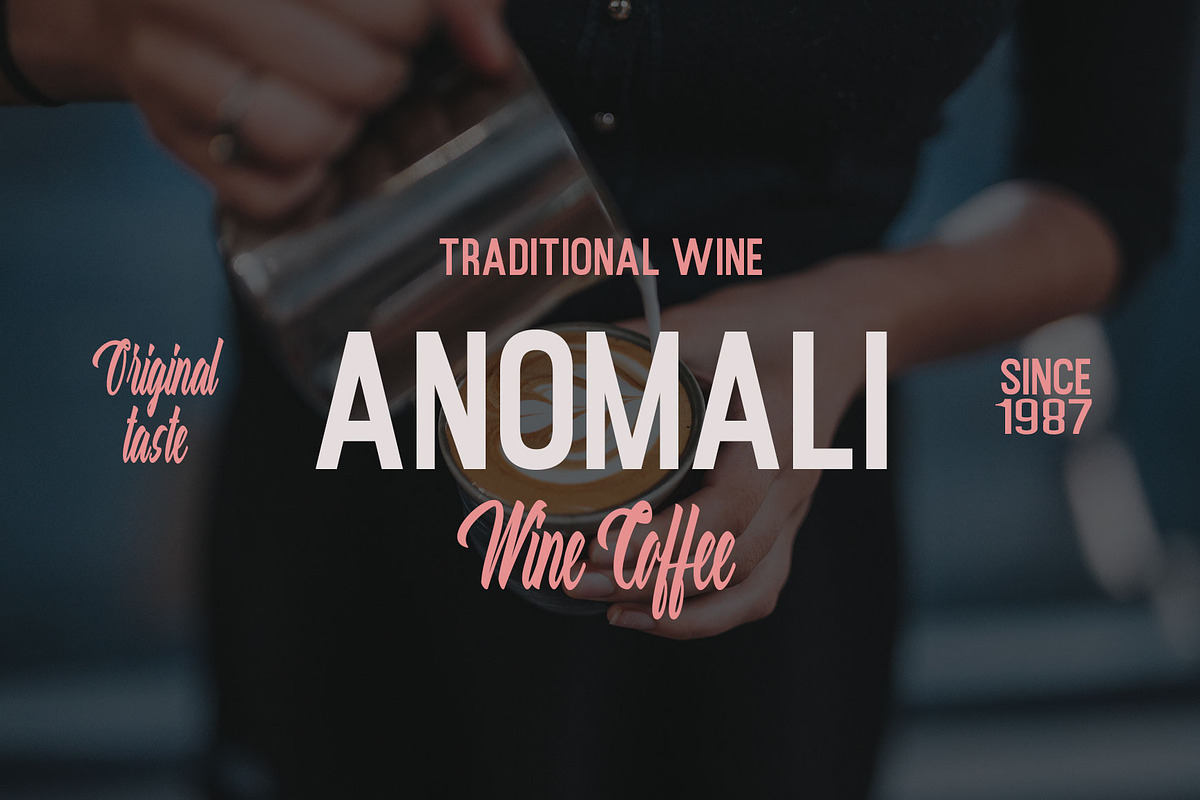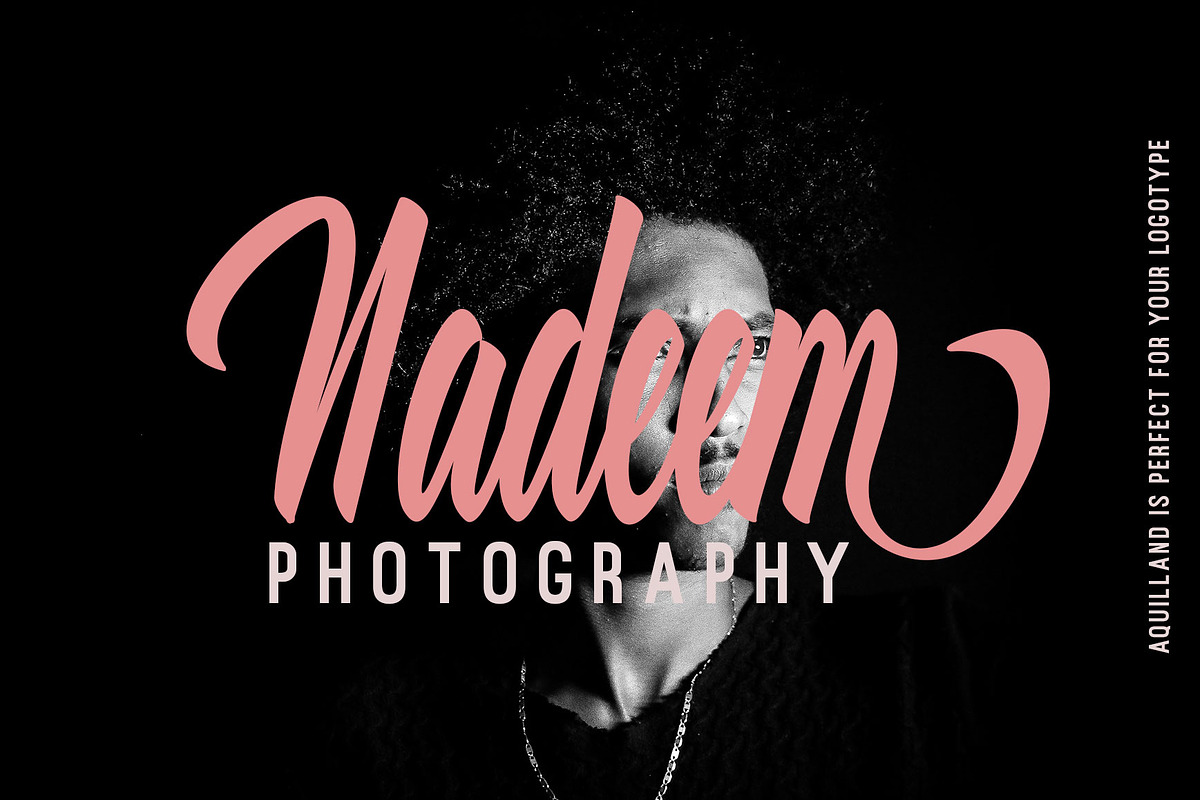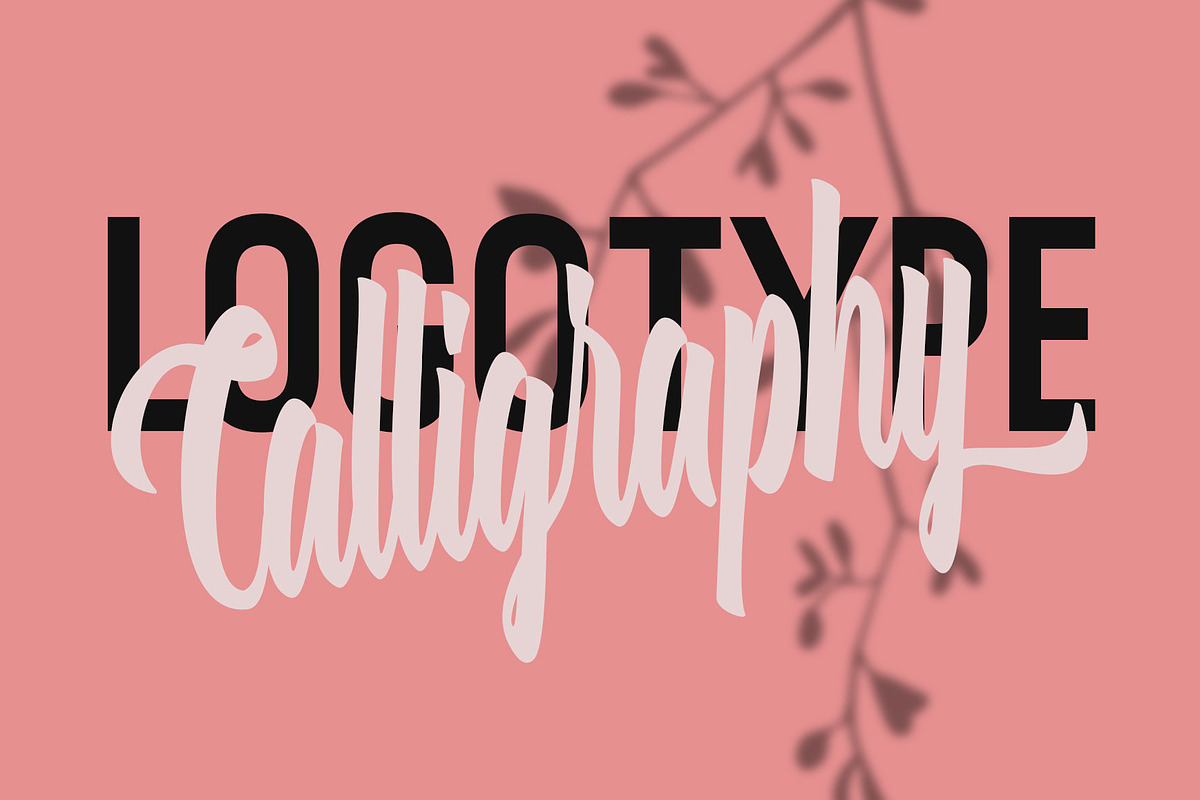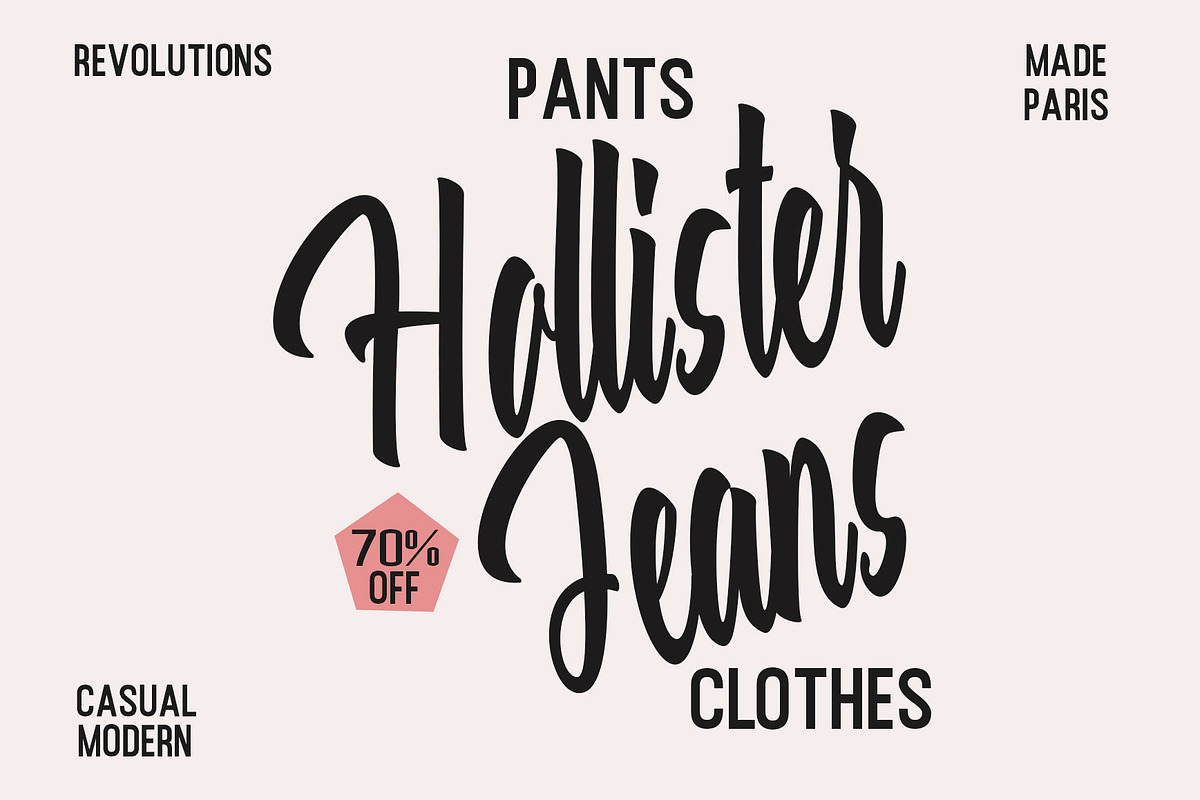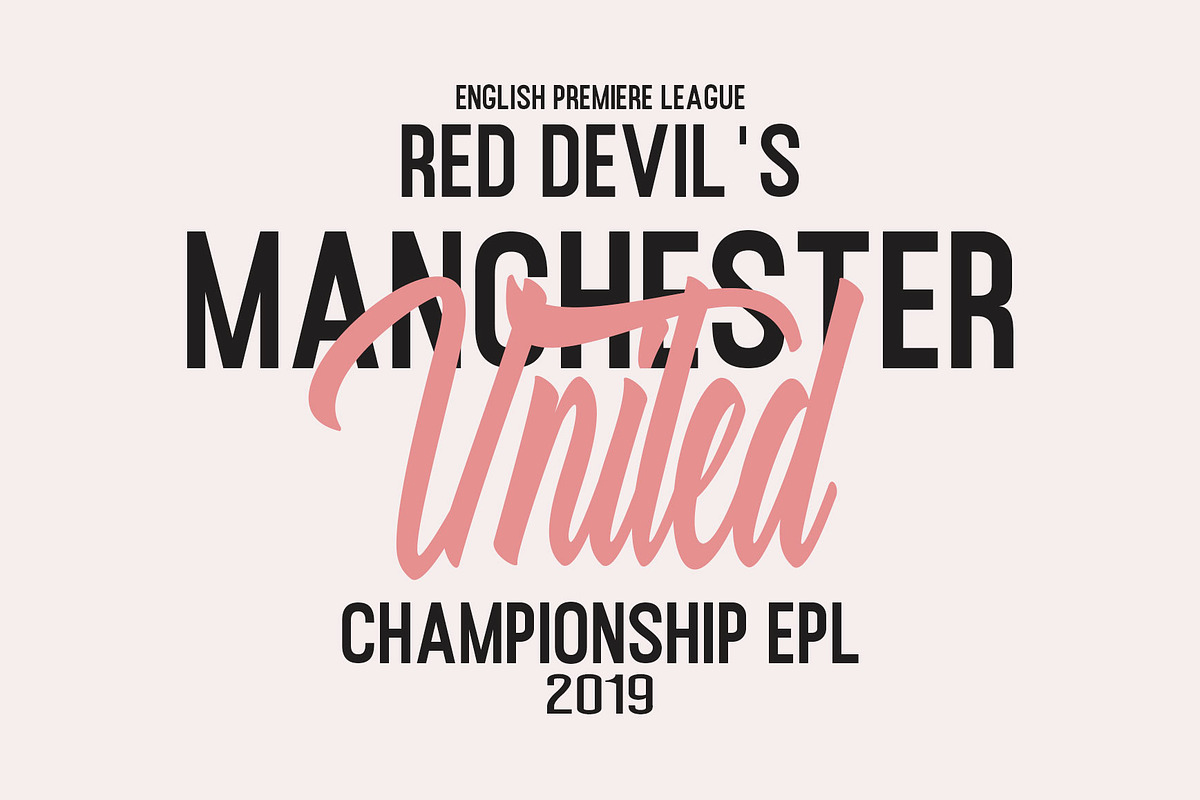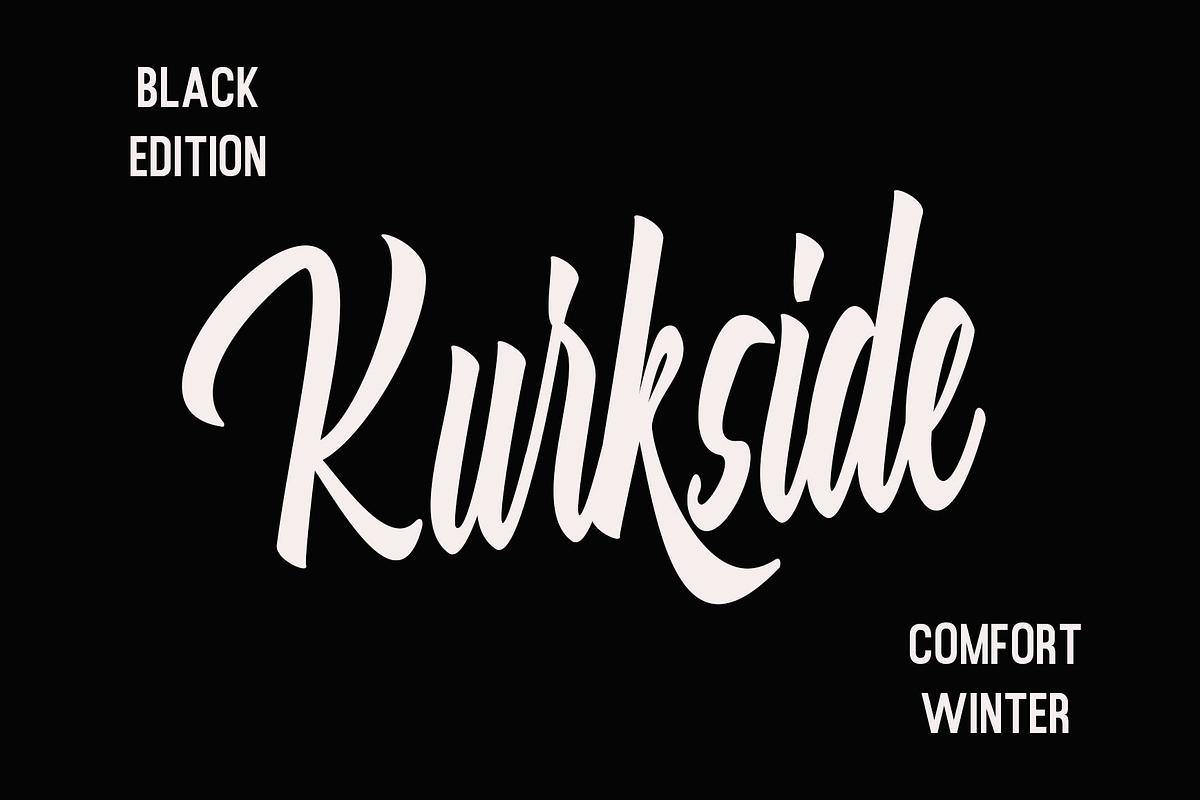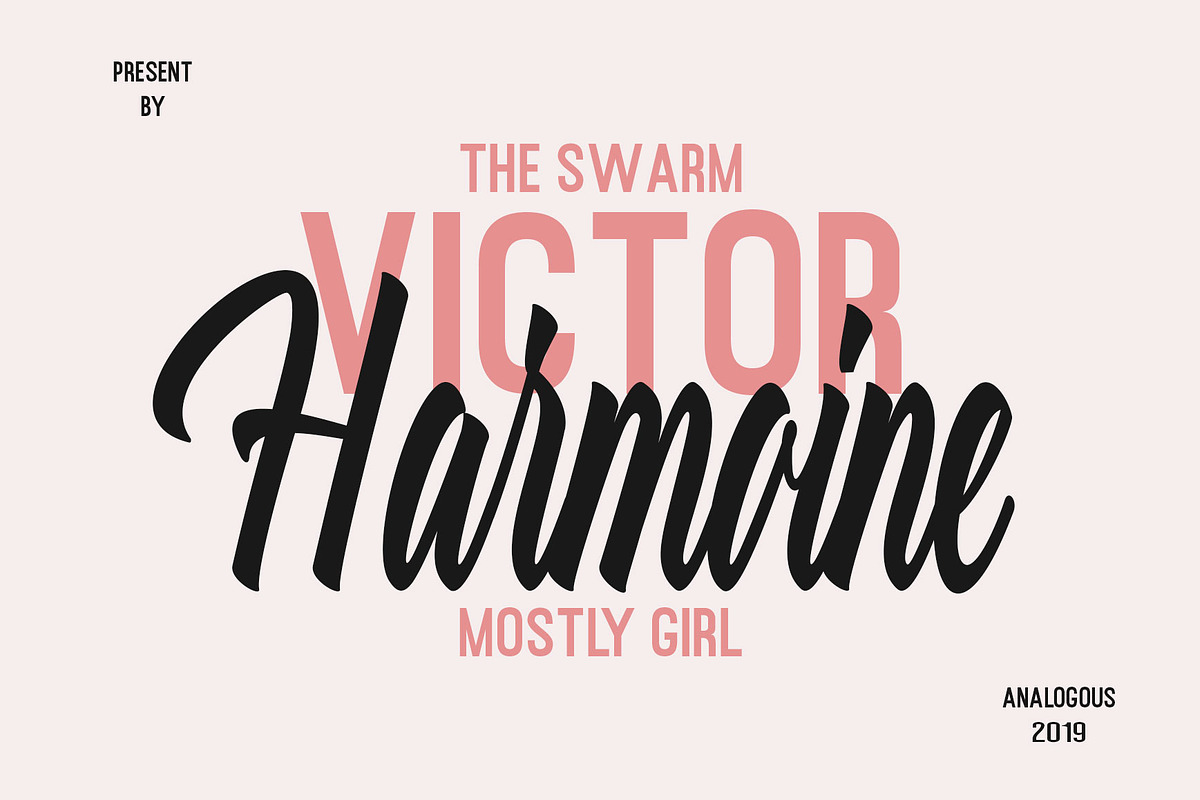
Aquilland || Font duo
Aquilland is Modern classy fonts with strong styles and circle movement. It's allowing you to create hand lettering is an instant.
Aquilland is a collective modern font combination. Come with 3 families with uppercase and lowercase, stylistic set, ligature, alternates, multilingual, etc to mix and match your design.
This font is perfect for your design, logo, label, badges, apparel design, etc. I also made a design to mix and match pairs of letters to fit your design.
- Come with 3 families with uppercase and lowercase, stylistic set, ligature, alternates, multilingual, etc to mix and match your design.
- Aquilland Regular
- Aquilland Sans Bold